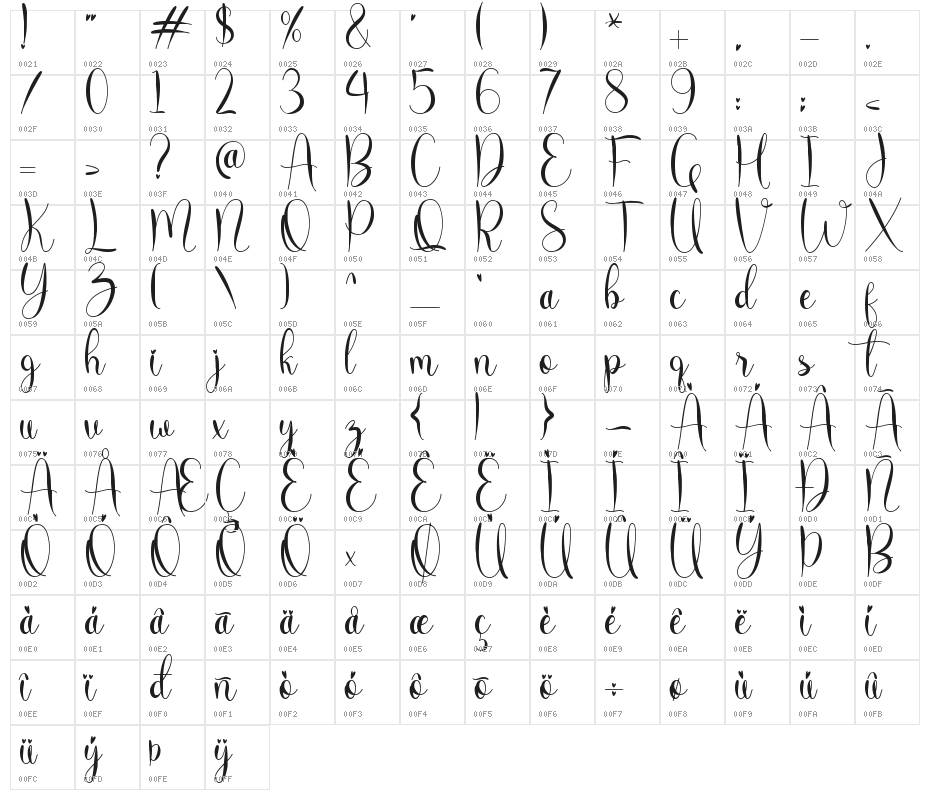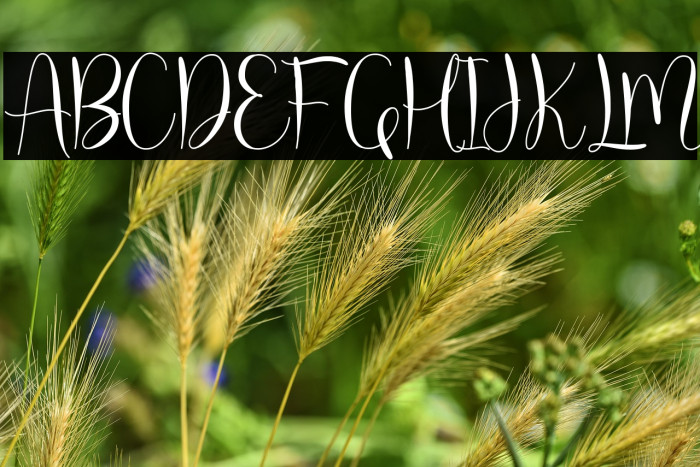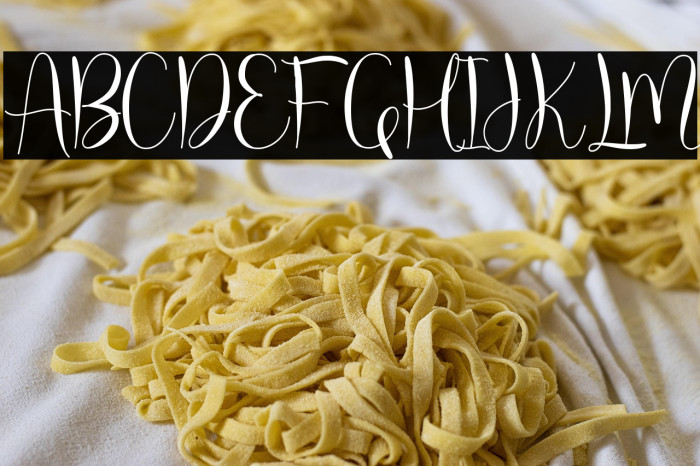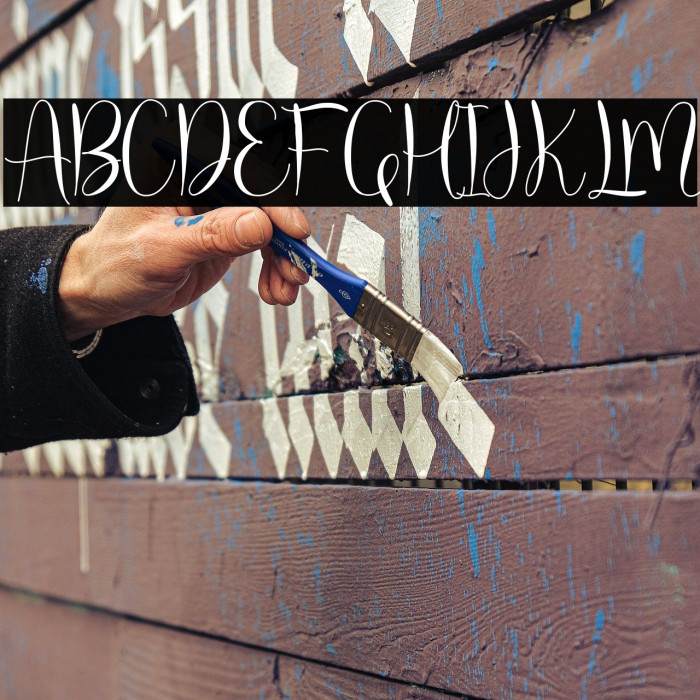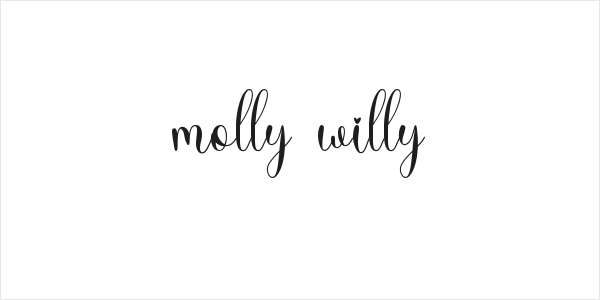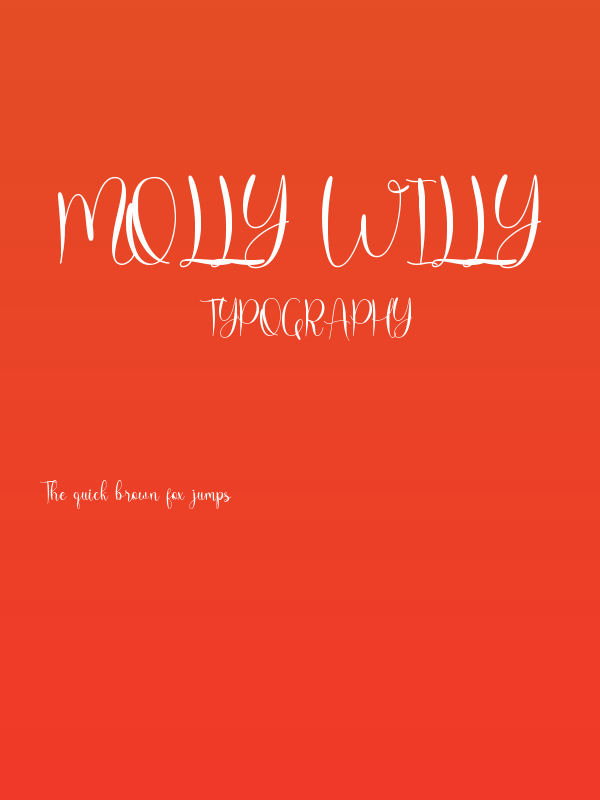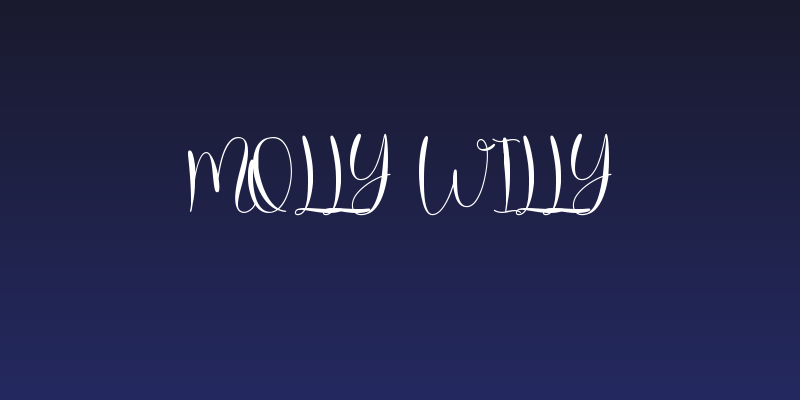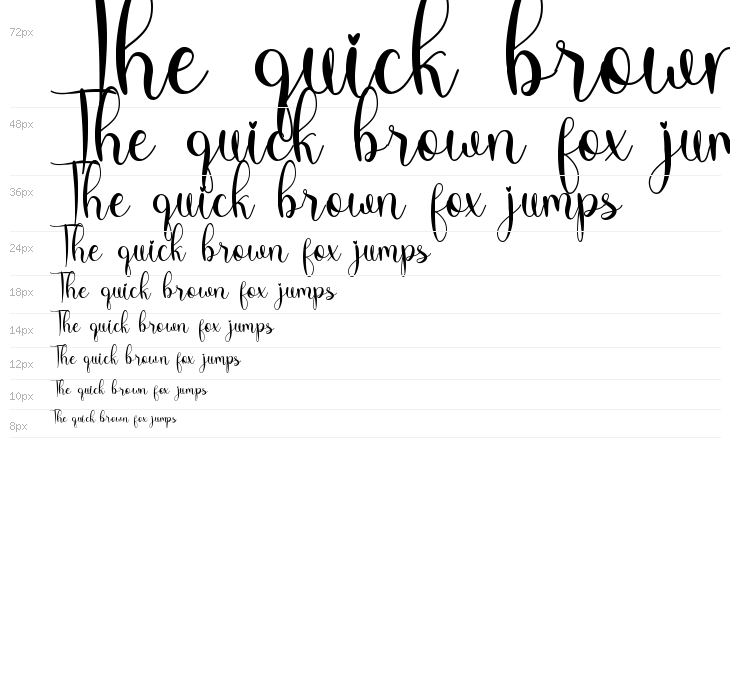
molly willy Font
molly willy Description
This font features an elegant and whimsical script style, characterized by its flowing, interconnected letters and playful loops. The uppercase letters are tall and slender, with exaggerated curves that give them a sense of movement and grace. The lowercase letters maintain a consistent style, with some letters featuring unique flourishes that add to the font's charm. The numerals are equally stylish, with a mix of thick and thin strokes that create a dynamic appearance. Special characters are creatively designed, maintaining the overall aesthetic of the font. This font is perfect for projects that require a touch of elegance and creativity.